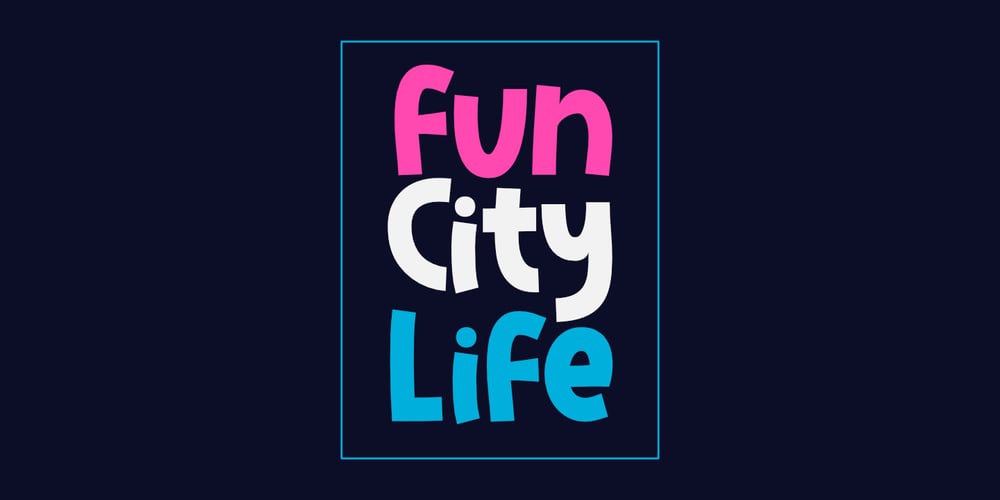
Fun City Life
Fun City Life font
Fun City Life Font Family was designed by Aldy Sidik and published by Epiclinez. Fun City Life contains 1 styles and family package options. Fun City Life is a smooth and bold display font. Its casual style makes it appear wonderfully down-to-earth, readable, and, ultimately, incredibly versatile. Whether you’re using it for crafting, digital designing, posters, movie headlines, or apparel, it’s lovely.So what’s included: Fun City Life in OTF format. Basic Latin A-Z, a-z, numbers, symbols, and punctuations Multi-Languages support: from Afrikaans Albanian Catalan Danish to Dutch English Spanish Swedish Zulu. Accented Characters : ÀÁÂÃÄÅÆÇÈÉÊËÌÍÎÏÑÒÓÔÕÖØŒŠÙÚÛÜŸÝŽàáâãäåæçèéêëìíîïñòóôõöøœšùúûüýÿžß Thank you